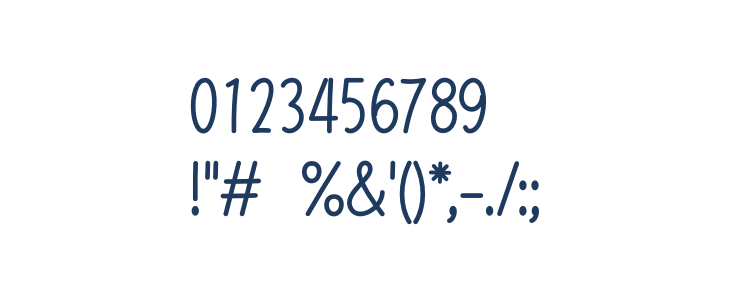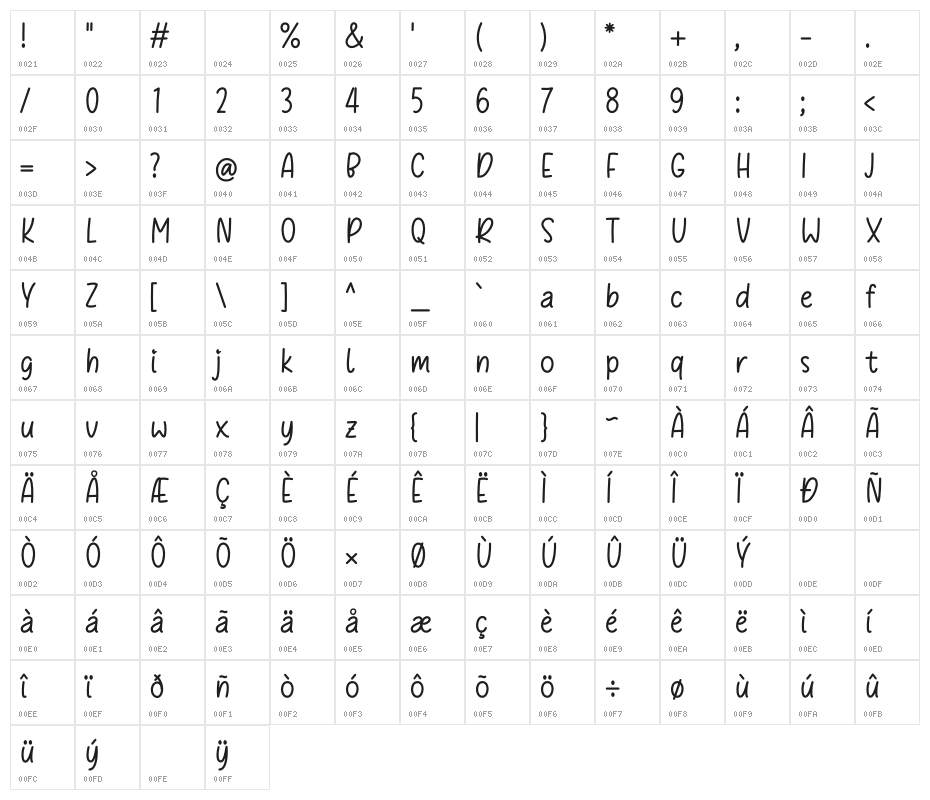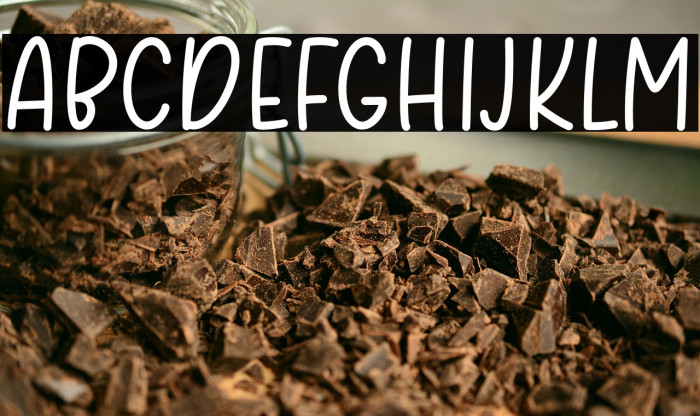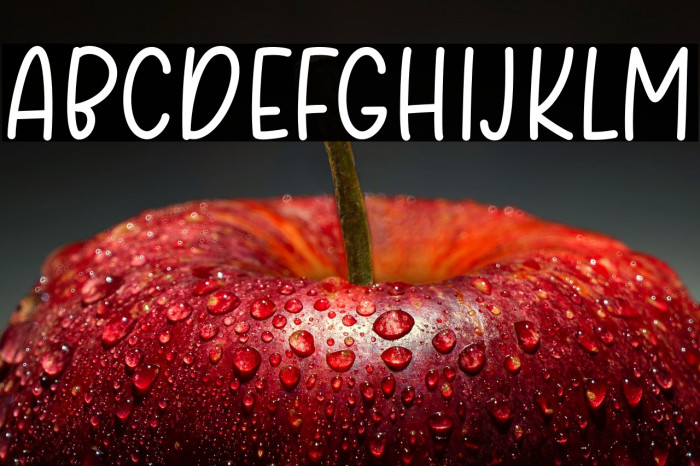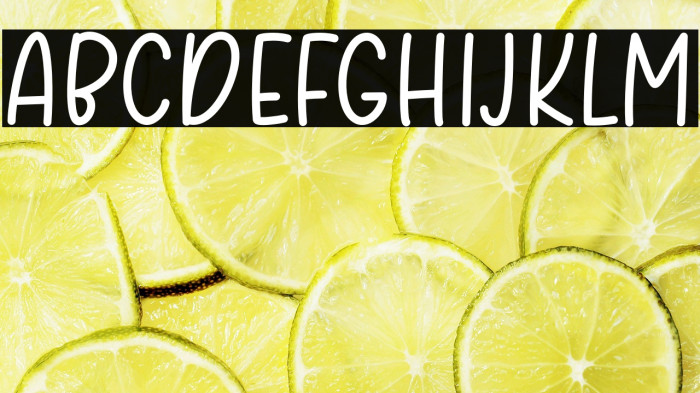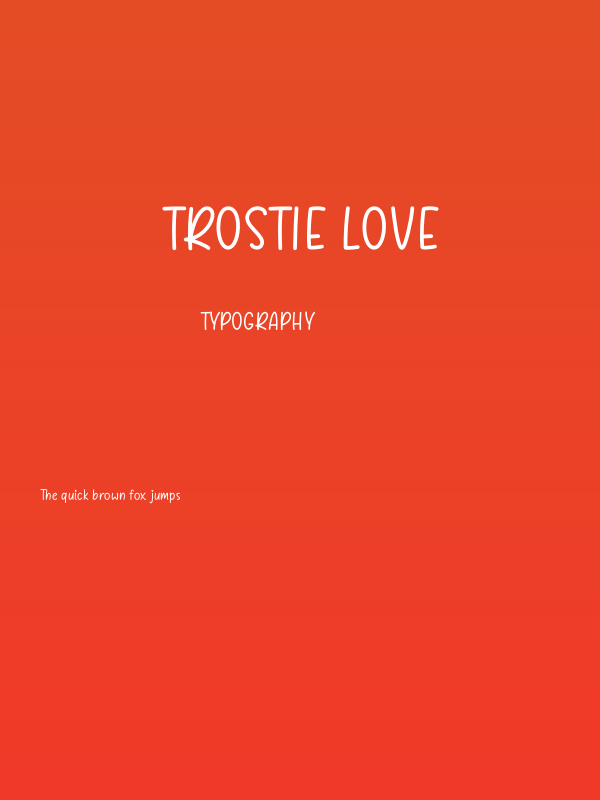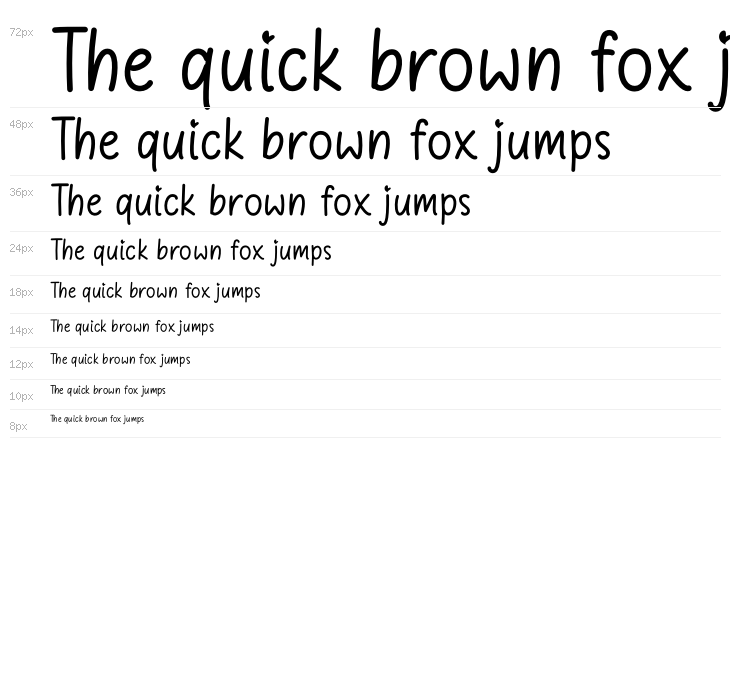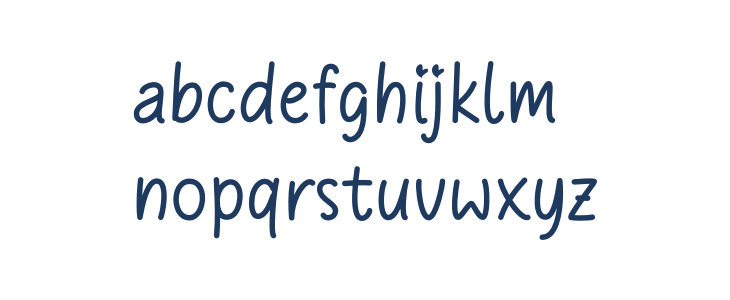
Trostie Love Font
Trostie Love Description
This playful and whimsical font features a handwritten style with smooth, flowing curves and a casual appearance. The letters are slightly irregular, adding a personal touch that mimics natural handwriting. The uppercase and lowercase letters maintain a consistent style, with rounded edges and a friendly demeanor. Numbers and special characters are designed to match the overall aesthetic, ensuring a cohesive look across all text elements. The font's informal style makes it ideal for projects that require a personal or creative touch.
| Proposed Projects | Ideal for greeting cards, children's books, personal blogs, and creative branding. |